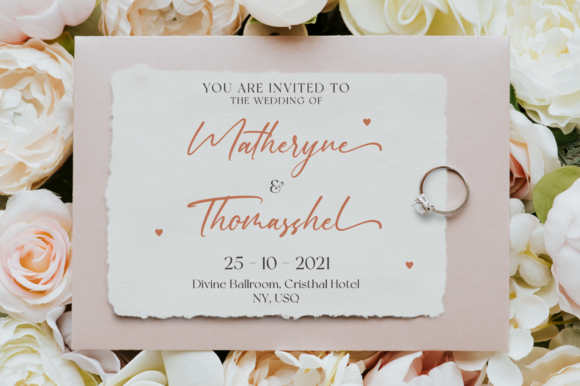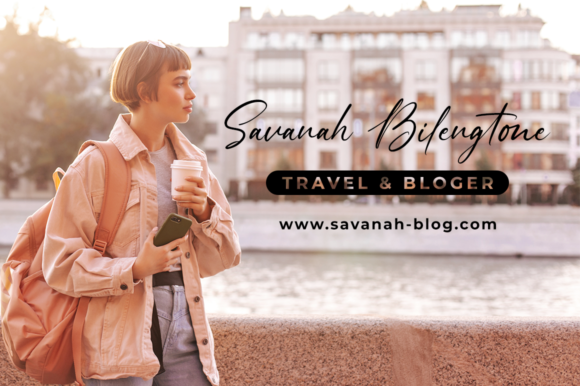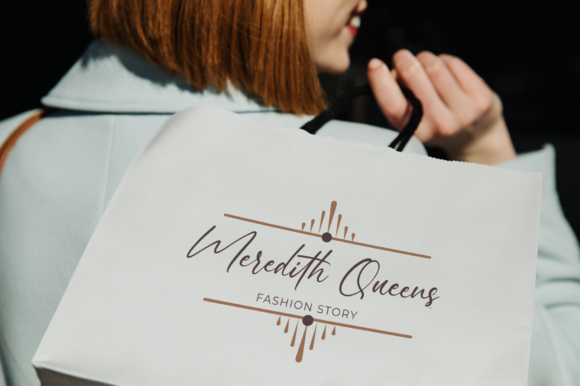
Introduction to Antoniette Font
Antoniette feels equally charming and elegant.
It looks stunning on wedding invitations, thank you cards, quotes, greeting cards, logos, business cards and more This font is PUA encoded which means you can access all of the glyphs and swashes with ease.